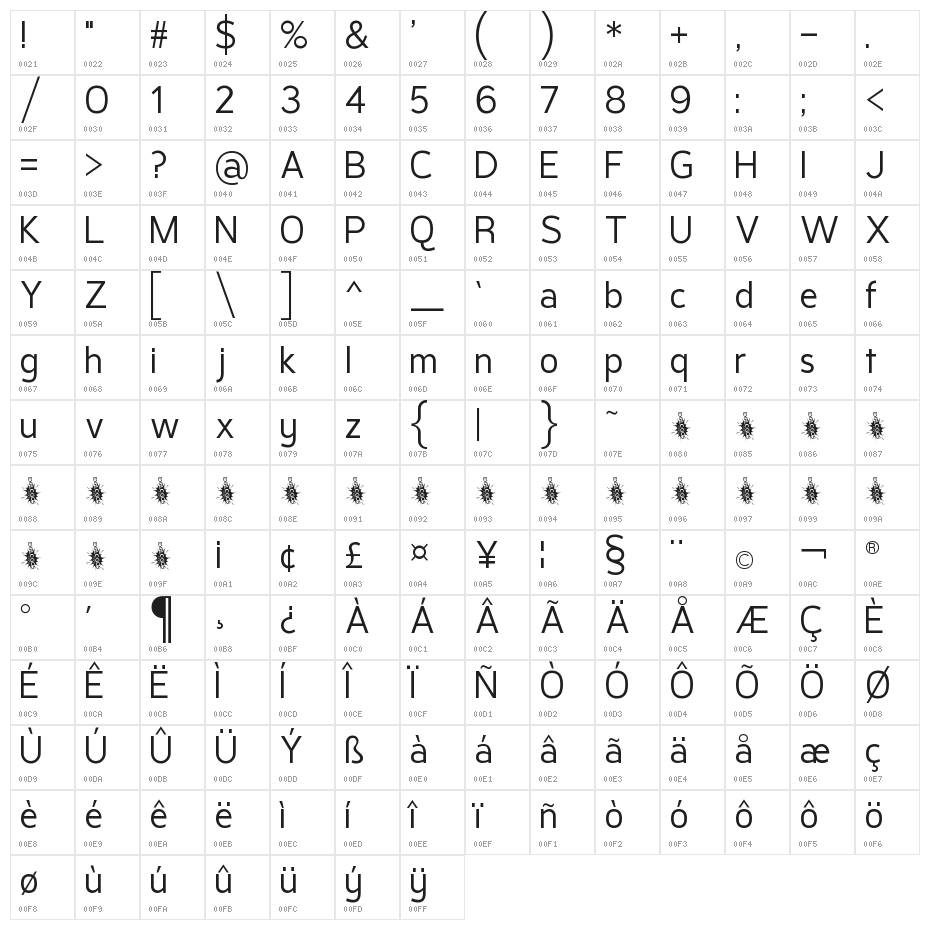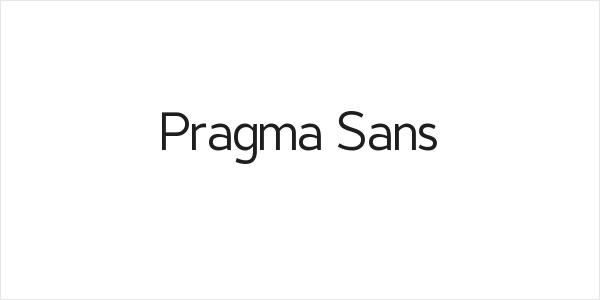
Pragma Sans Font
Pragma Sans Description
This typeface features a clean and modern sans-serif design, characterized by its geometric shapes and uniform stroke widths. The letters are well-proportioned, with a slightly condensed appearance that enhances readability. The uppercase characters are bold and assertive, while the lowercase letters maintain a friendly and approachable feel. The numerals are clear and distinct, making them ideal for data presentation. Special characters are designed with precision, ensuring consistency across all glyphs. This font is versatile, suitable for both digital and print media, and excels in providing a contemporary look.
| Proposed Projects | Ideal for branding, web design, corporate materials, and editorial layouts. |